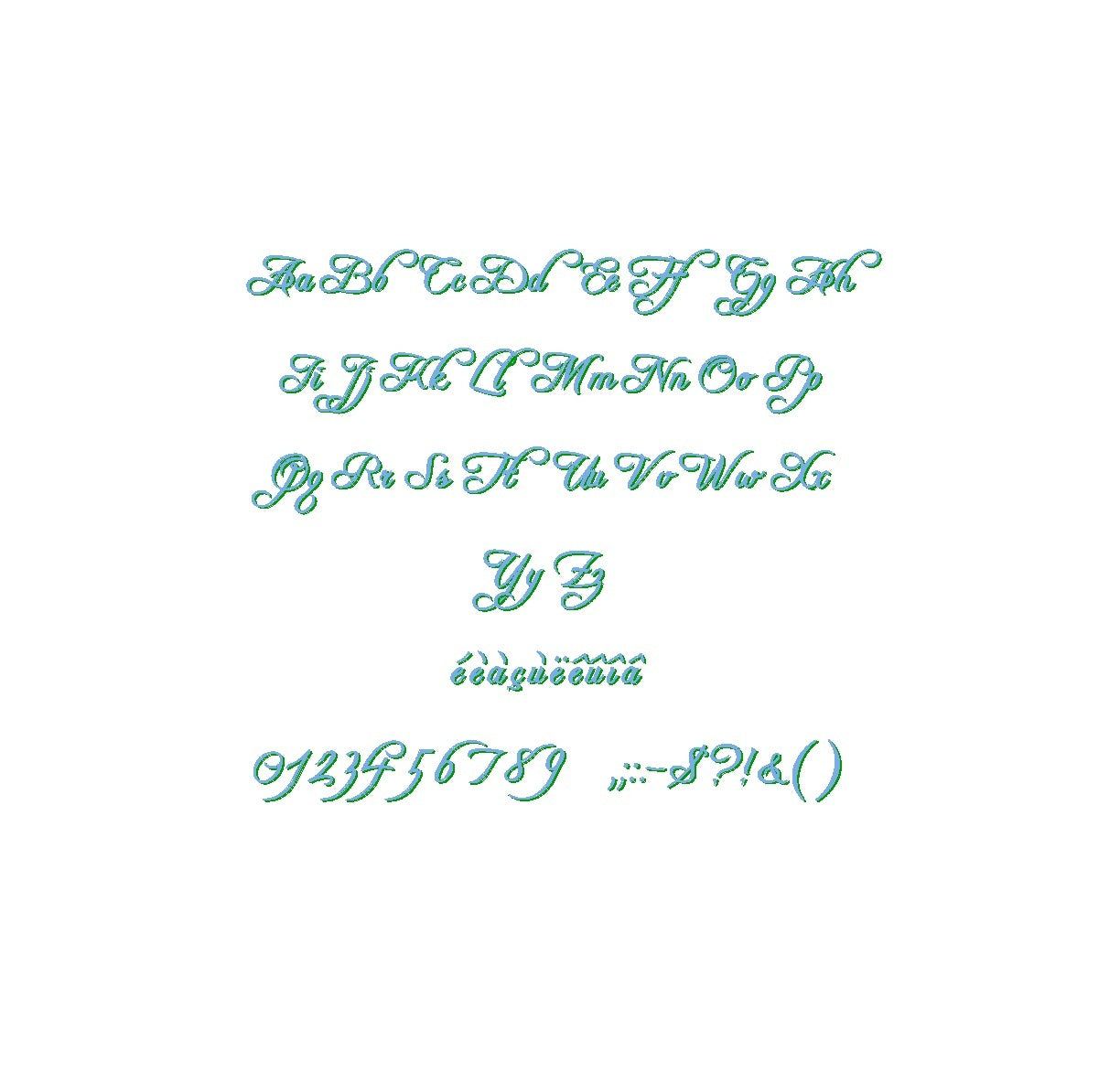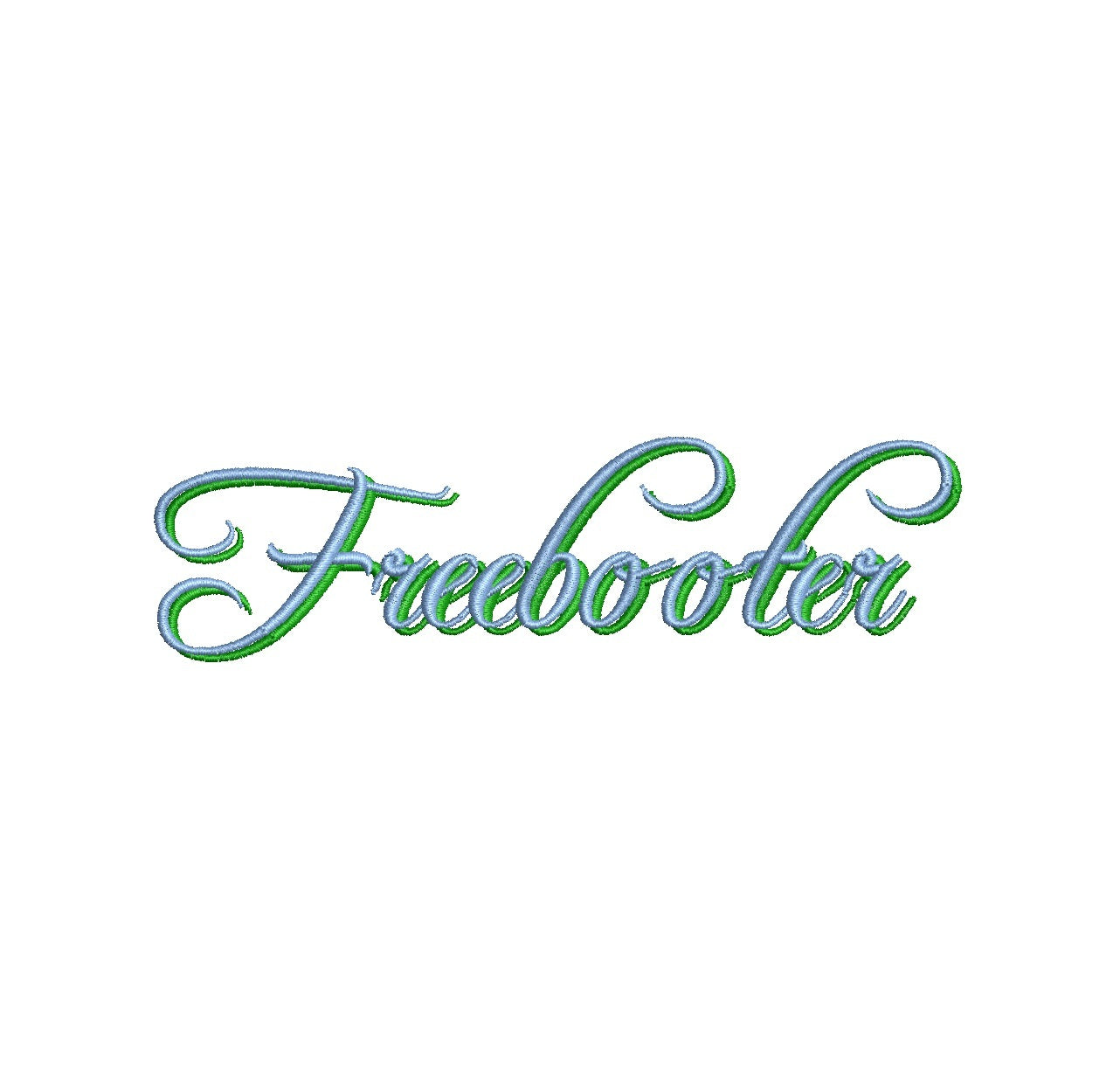
Elevate your designs with the captivating Freebooter Shadow ESA font. Fully compatible with Wilcom Studio e4.5.6 and Hatch 3 versions and up, this font adds a touch of whimsy and boldness to your projects. The intricate shadows and unique lines of this font create a striking visual impact that sets your designs apart. Streamline your creative process and achieve flawless results by utilizing this font with industry-leading software. Upgrade your projects with the compatibility of Freebooter Shadow ESA font and craft visuals that ignite creativity. Embrace the spirit of adventure for your design journey today!